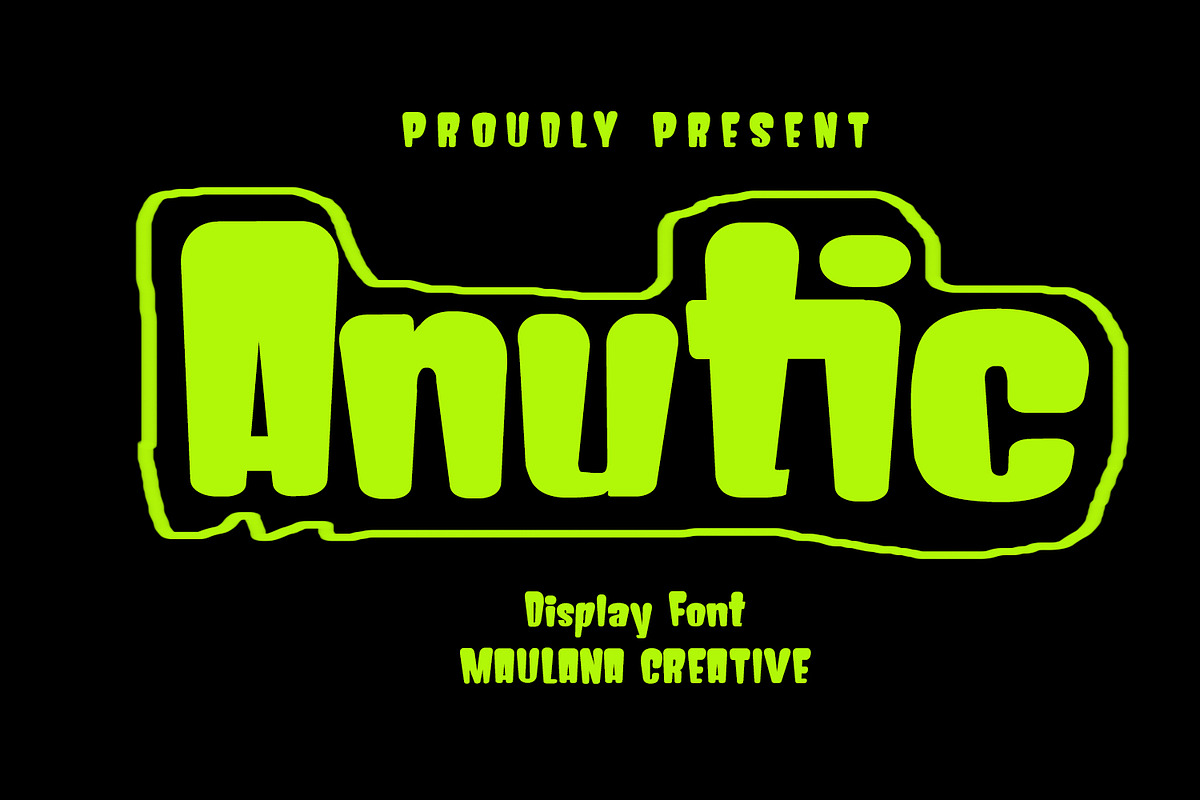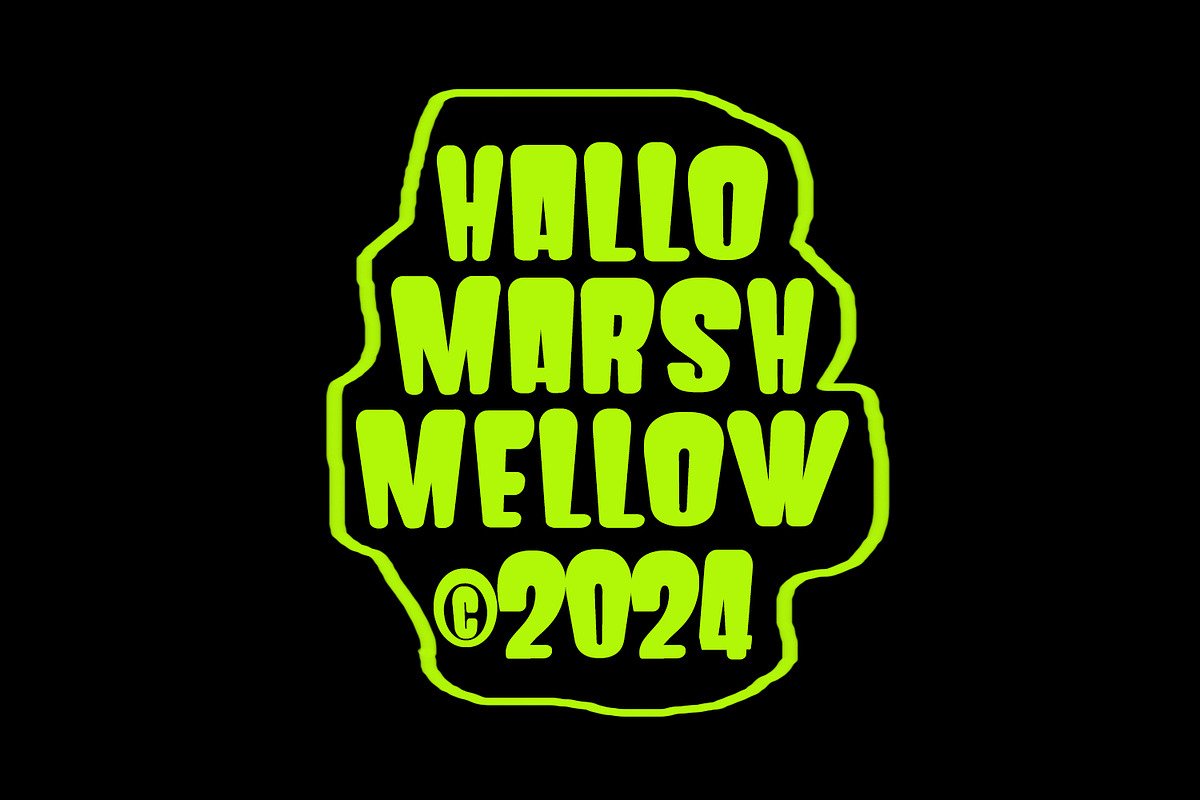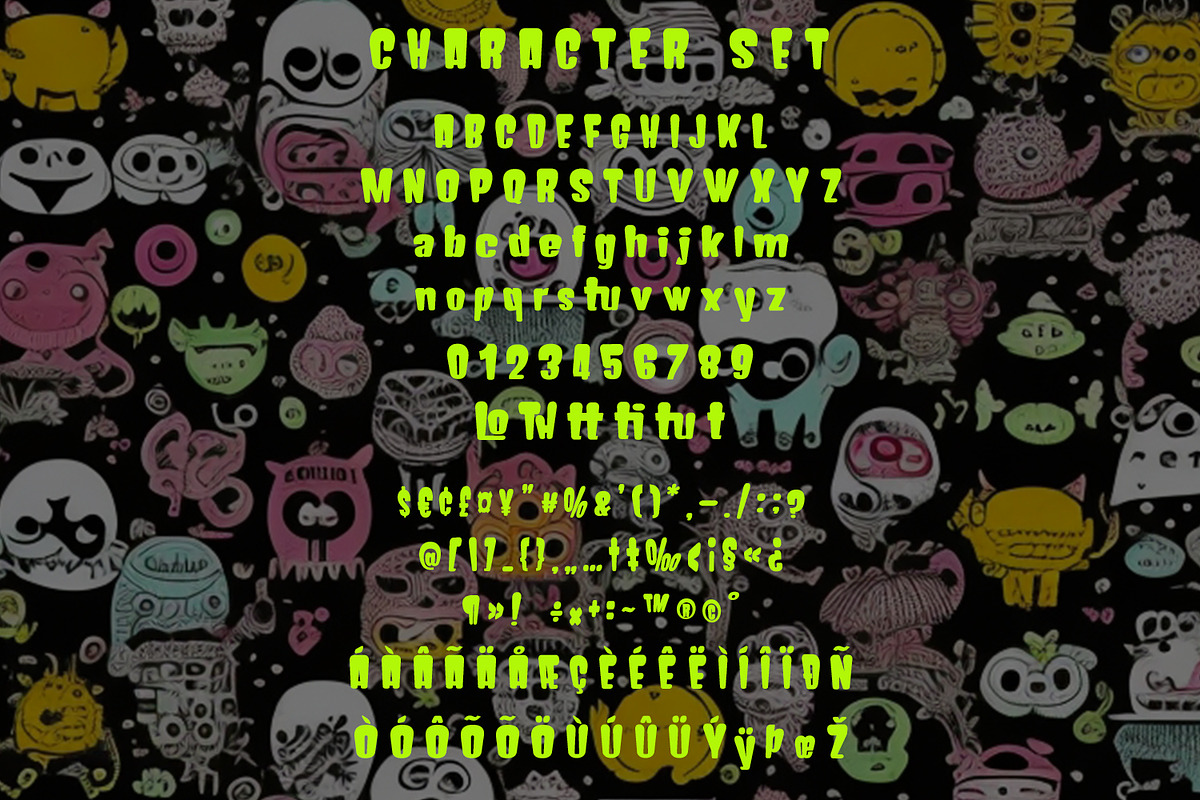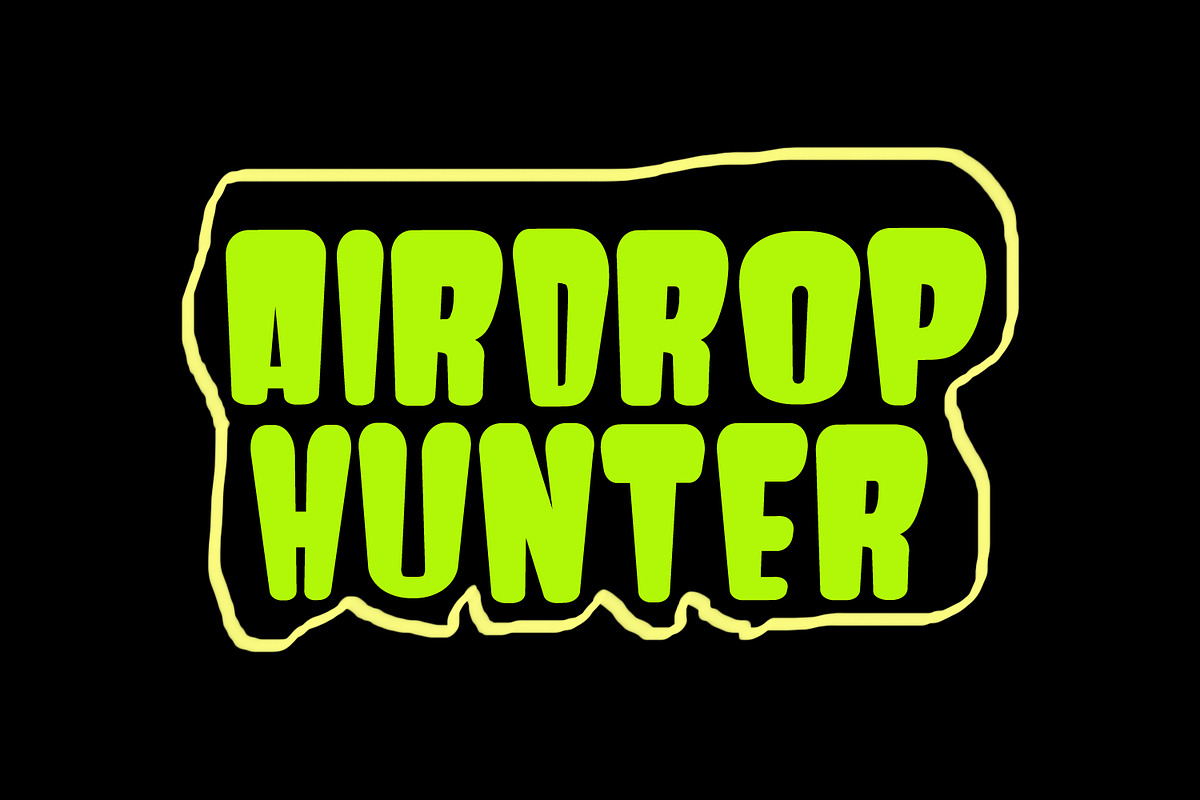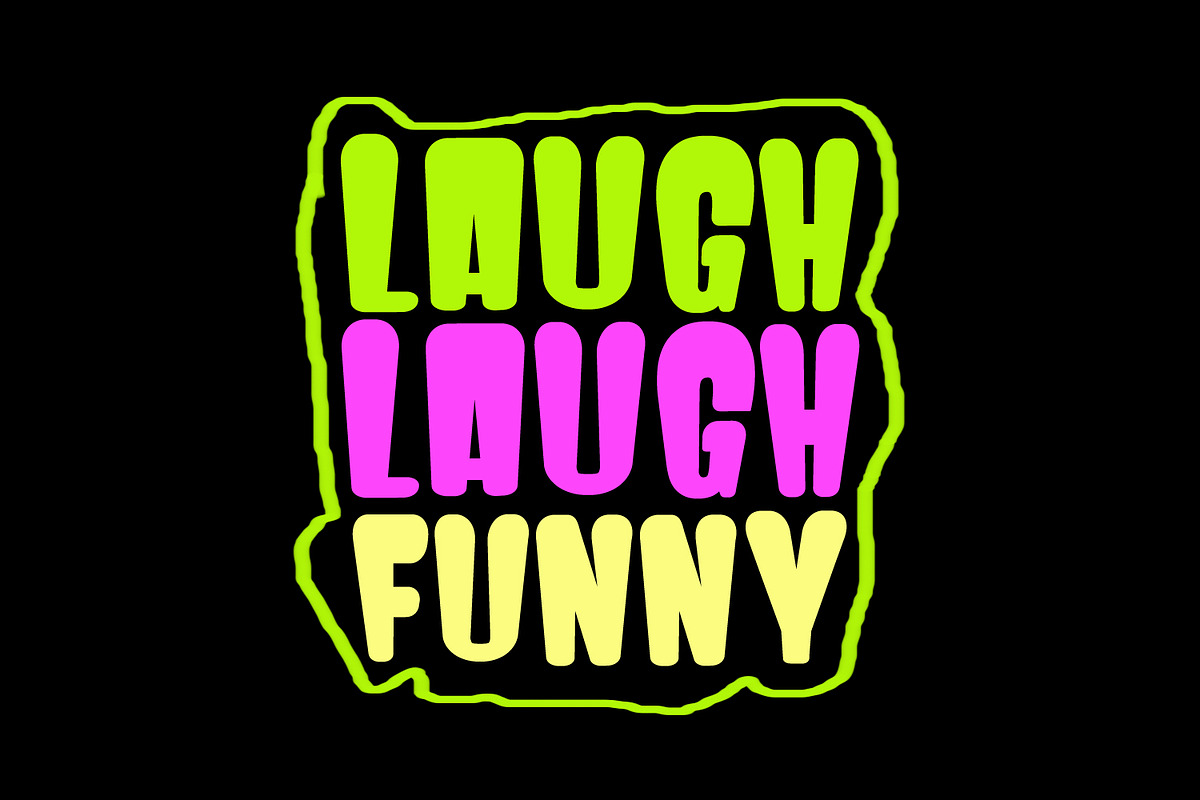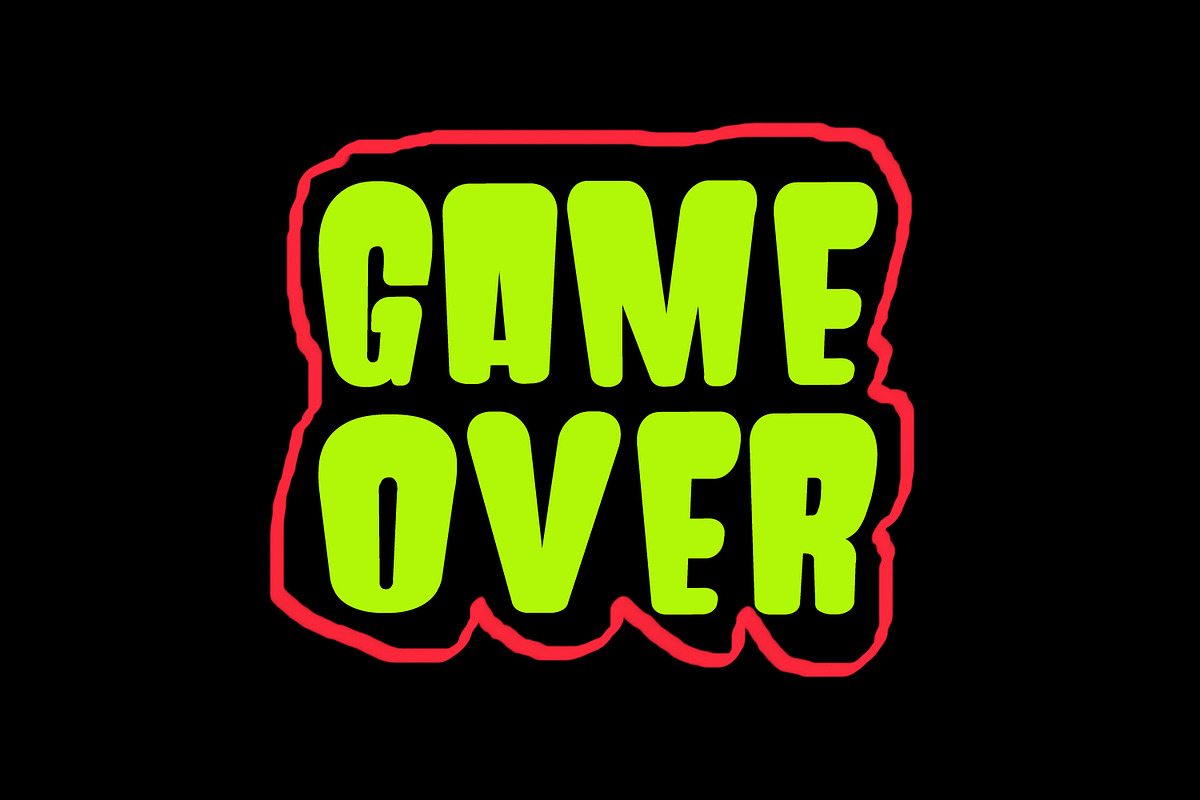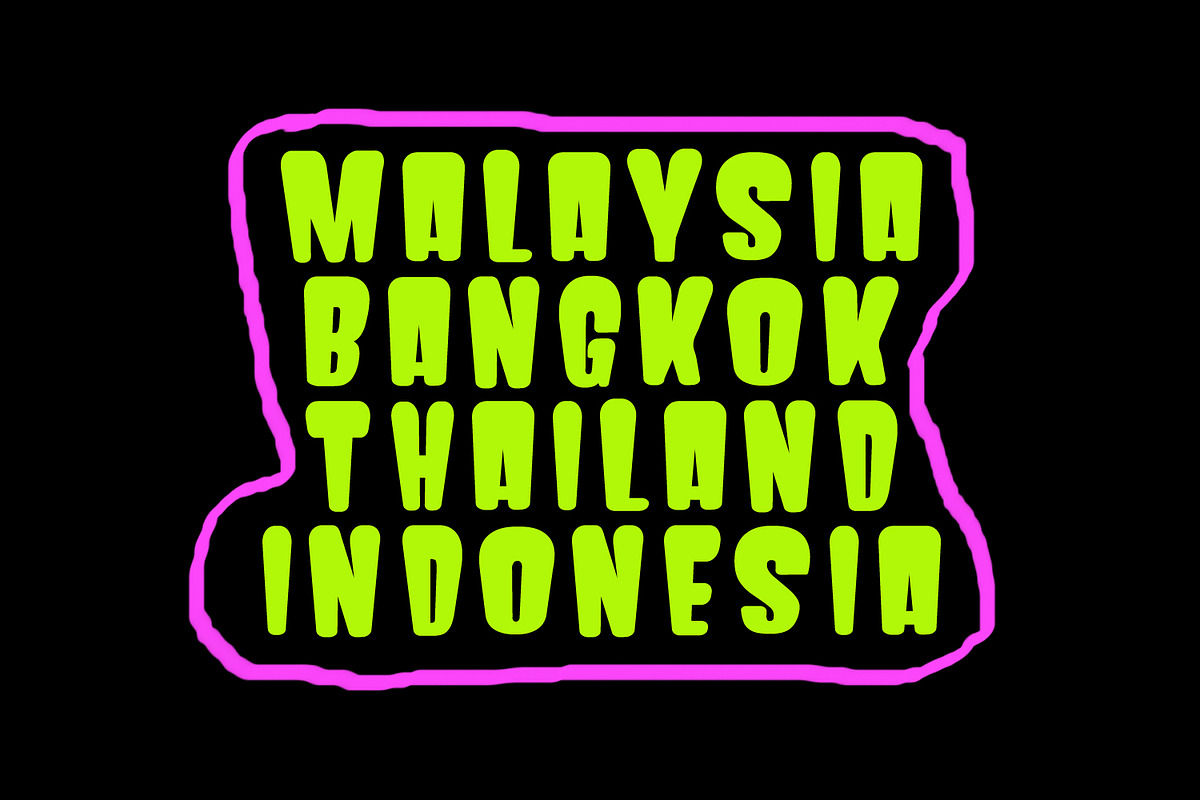
Anutic Display Game Font
Anutic display font, fun character with alternate and ligatures. To give you an extra creative work. Anutic display font support multilingual language.